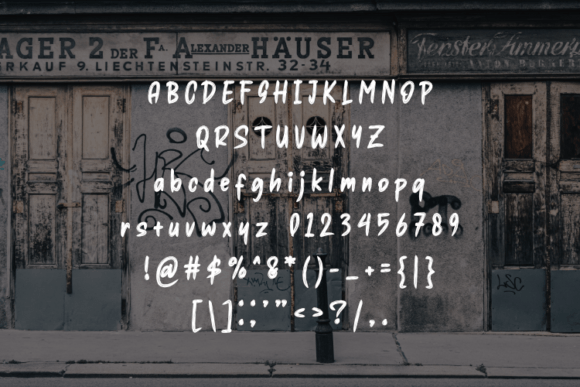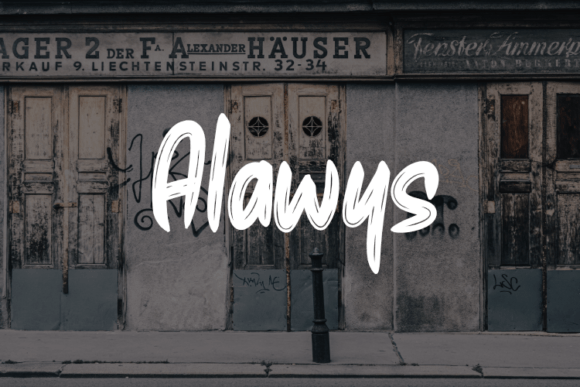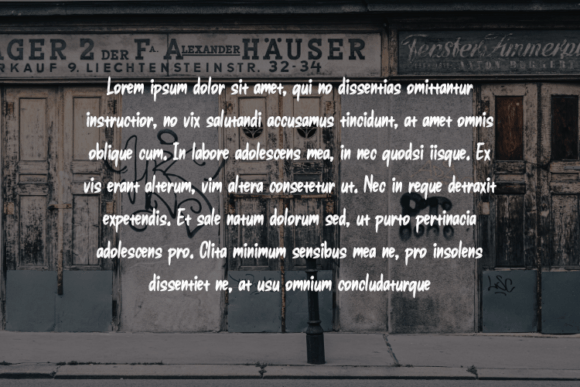
Unveiling Brusdes: The Ultimate Font for Elevating Your Design Game
In the world of design, fonts play a crucial role in conveying the message and aesthetic of a brand or product. With the ever-growing demand for visually appealing designs, the search for the perfect font has become a never-ending quest. This is where Brusdes comes into play – an innovative font designed to effortlessly add a stylish touch to your apparel and product designs.
The Birth of Brusdes: A Font for All Occasions
Crafted to be an all-rounder, Brusdes is a versatile font that seamlessly marries with any design concept. Whether you’re working on t-shirts, apparel, or a variety of products, Brusdes is the perfect companion to help you elevate your designs. Its unique style and adaptability make it an ideal choice for designers and crafters looking to create stunning visuals that capture the essence of their brand or product.
The Brusdes Advantage: Transforming the Ordinary into Extraordinary
Brusdes is more than just a font – it’s an essence of style that transforms the ordinary into extraordinary. With Brusdes, you can:
• Add a touch of sophistication to your designs
• Elevate your brand’s visual identity
• Create stunning product designs that stand out in the market
• Experiment with new and innovative design concepts
Why Choose Brusdes for Your Design Needs?
So, what sets Brusdes apart from other fonts? Here are just a few reasons why Brusdes is the perfect choice for designers and crafters:
• Versatility: Brusdes is a versatile font that works well with a wide range of design concepts and products.
• Style: Brusdes adds a touch of sophistication and style to your designs, setting them apart from the ordinary.
• Ease of use: Brusdes is easy to use and requires no special design skills, making it accessible to designers and crafters of all levels.
Unlocking Your Creative Potential with Brusdes
Brusdes is more than just a font – it’s a creative tool designed to help you unlock your full design potential. With Brusdes, you can:
• Experiment with new design concepts and ideas
• Push the boundaries of your creativity
• Create stunning designs that capture the essence of your brand or product
• Take your designs to the next level
Font Name Brusdes Font
Author Eric Kusuma
In conclusion, Brusdes is an innovative font that is set to redefine your creative journey. With its versatility, compatibility, and style, Brusdes is the perfect choice for designers and crafters looking to elevate their design game. Whether you’re working on t-shirts, apparel, or a variety of products, Brusdes is the ultimate font for adding a stylish touch to your designs. So why wait? Unlock your creative potential with Brusdes and take your designs to the next level.